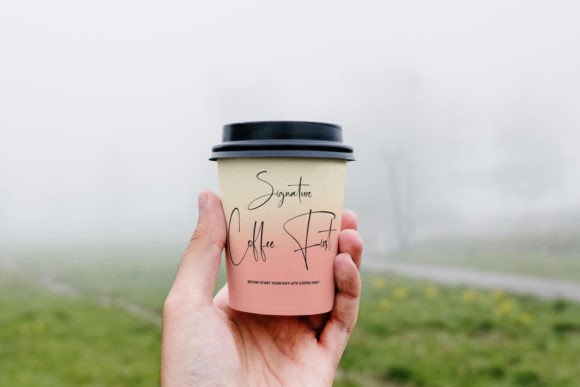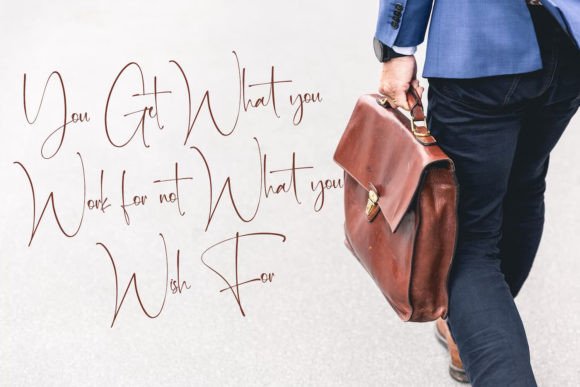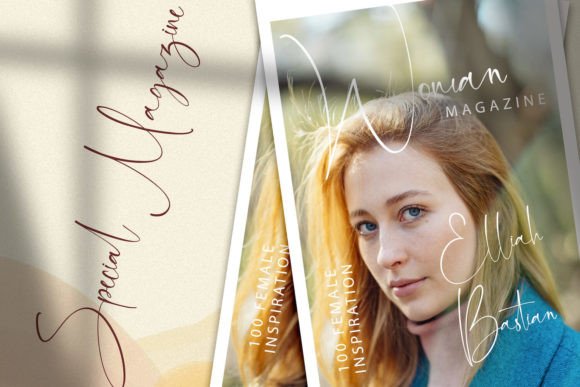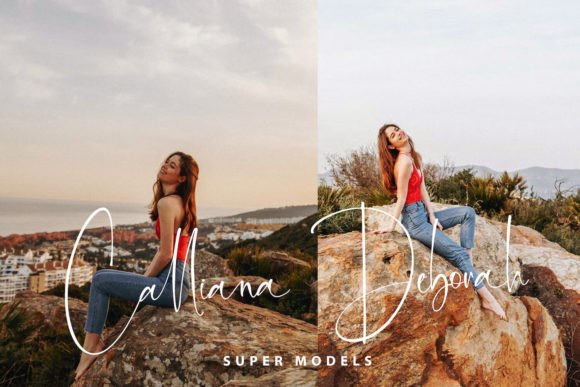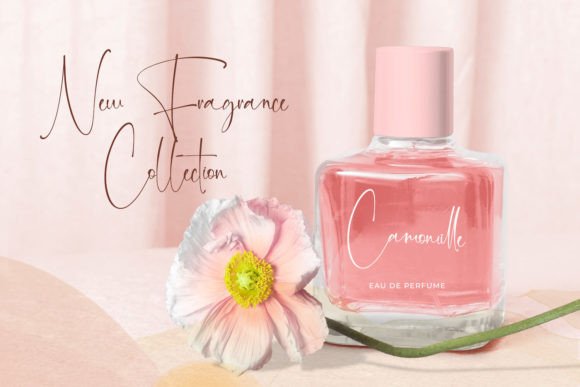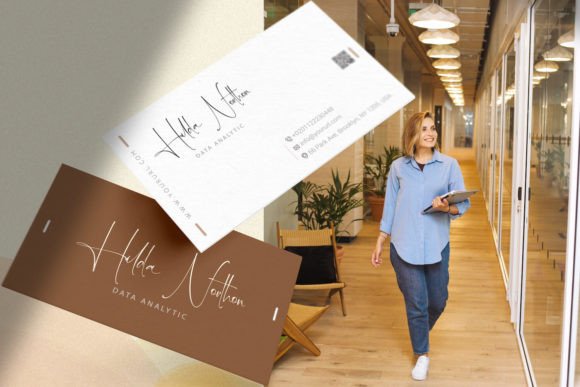
Introduction to Martin Zidan Font
Have you ever stared at a blank canvas, waiting for the perfect spark to ignite your creative project? It’s a moment we’ve all experienced – that moment of uncertainty, when the blank page seems daunting, and our imagination seems to be stuck in neutral. But what if I told you that there’s a secret to unlocking that creative flow, and it starts with the right design resource?
Enter the Martin Zidan Font, a delicate, elegant, and flowing handwritten font that’s as versatile as it is beautiful. With its high-quality characters and well-balanced design, this font is a valuable addition to any designer’s toolkit. Whether you’re working on a free download project or a paid design job, the Martin Zidan Font is sure to elevate your work and bring it to life.
Key Features of Martin Zidan Font
- High-quality font with a unique and creative style, suitable for various creative projects.
- Designed by Martin Zidan Font, a renowned font designer, known for creating unique and high-quality fonts.
Honest Review: Martin Zidan Font
What works well with this font is its versatility. It has a clean and modern design, making it suitable for a wide range of applications, from digital to print. The font also features a transparent background, which is a great bonus for designers who want to add an extra layer of depth to their designs.
Some of the key features of the Martin Zidan Font include:
⚠️ However, I did notice that the font has a limited character set, which may be a limitation for designers who need to use it for complex text-based projects. Additionally, the font may not be suitable for projects that require a lot of customization.
Overall, I’m impressed with the Martin Zidan Font and would definitely recommend it as a design resource for creative projects. While it may have some limitations, its high-quality design and versatility make it a great addition to any designer’s toolkit. ✨
Martin Zidan Font is a free download font designed for creative projects that require high quality typography. With its unique style and transparent background, it can add a touch of sophistication to any design.
Martin Zidan Font is commonly used in:
- Brochures